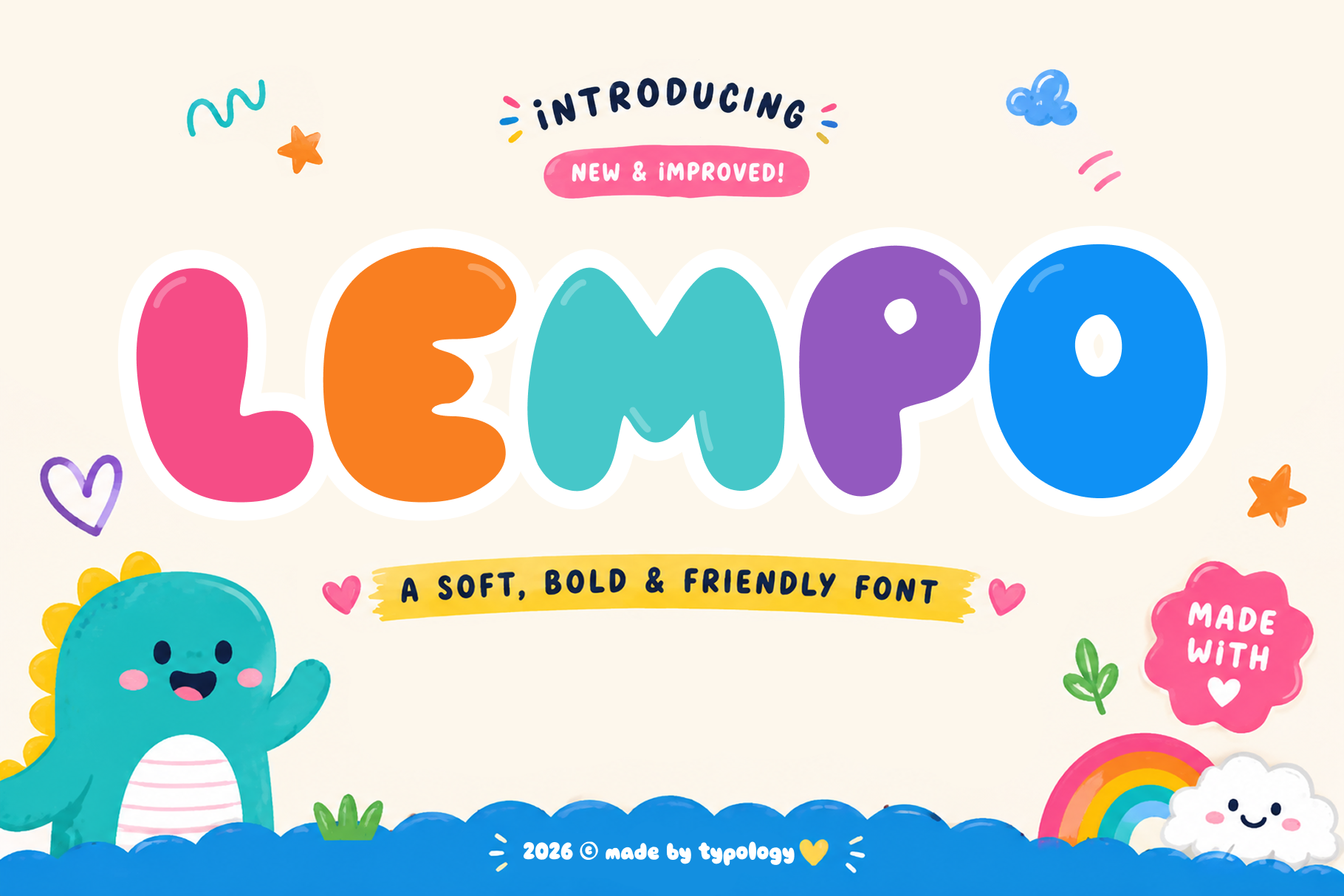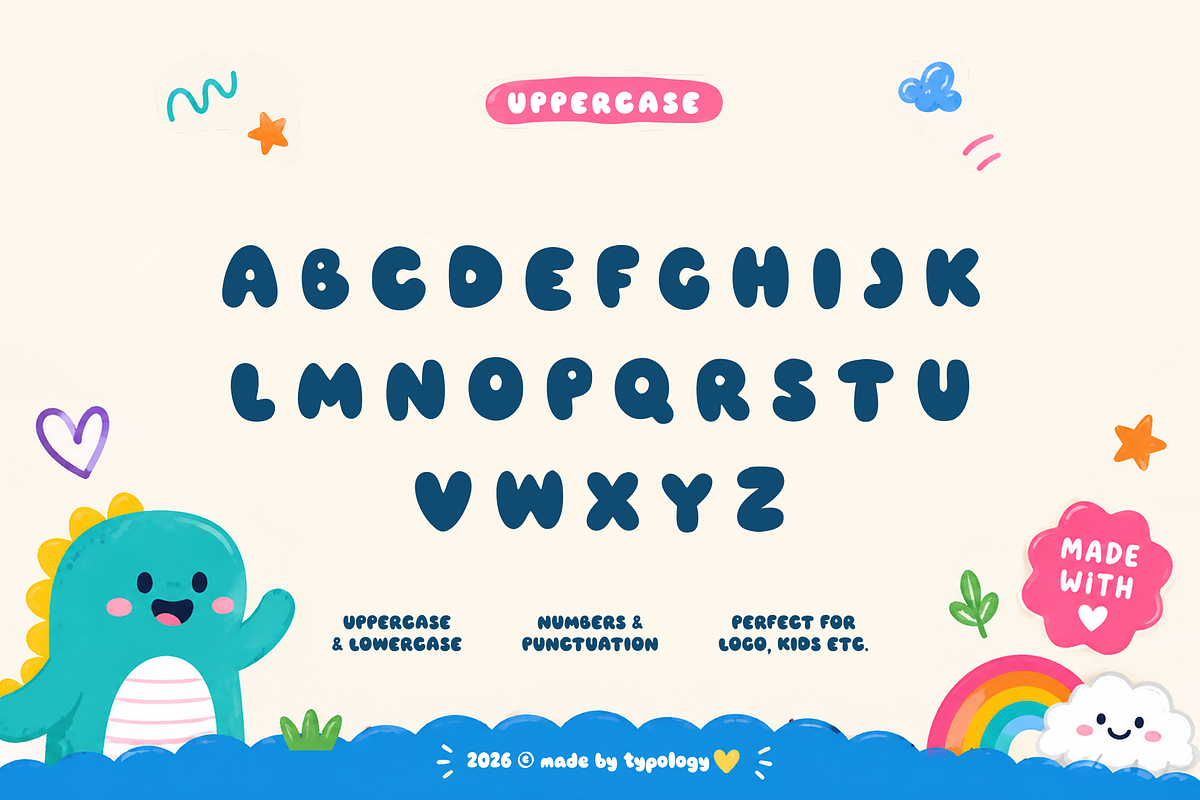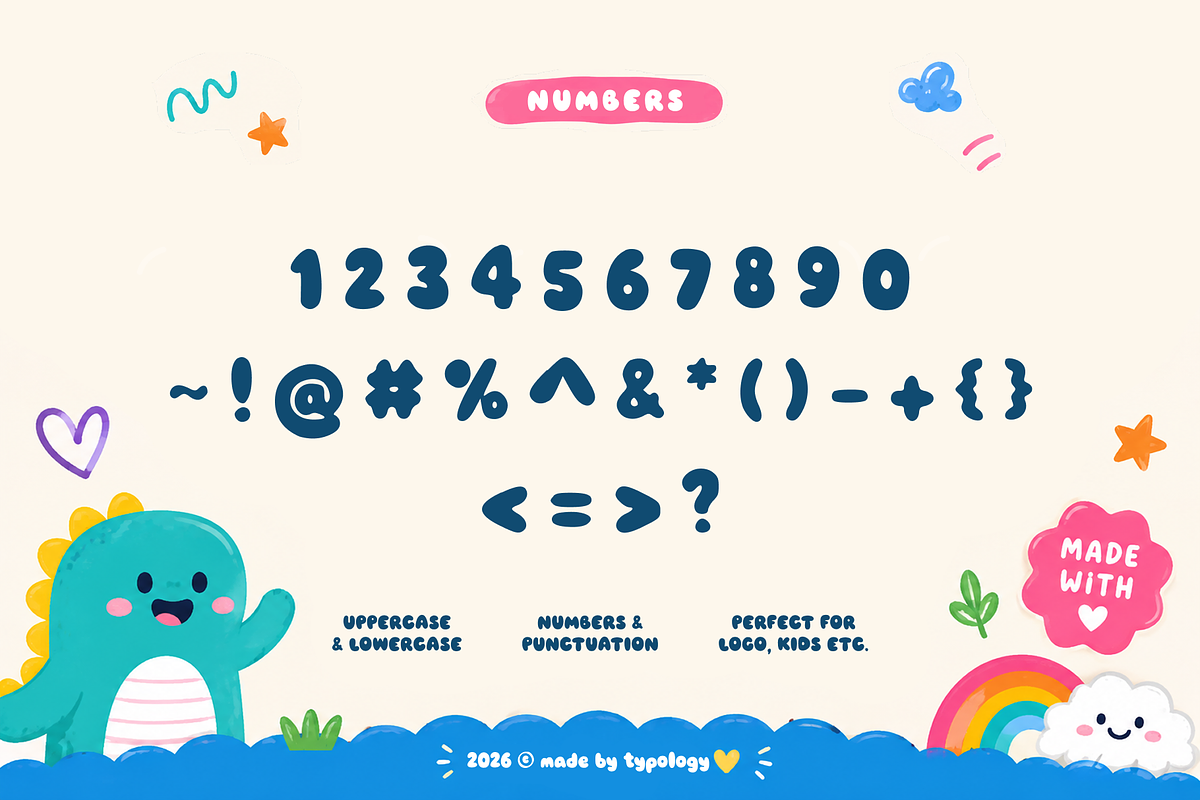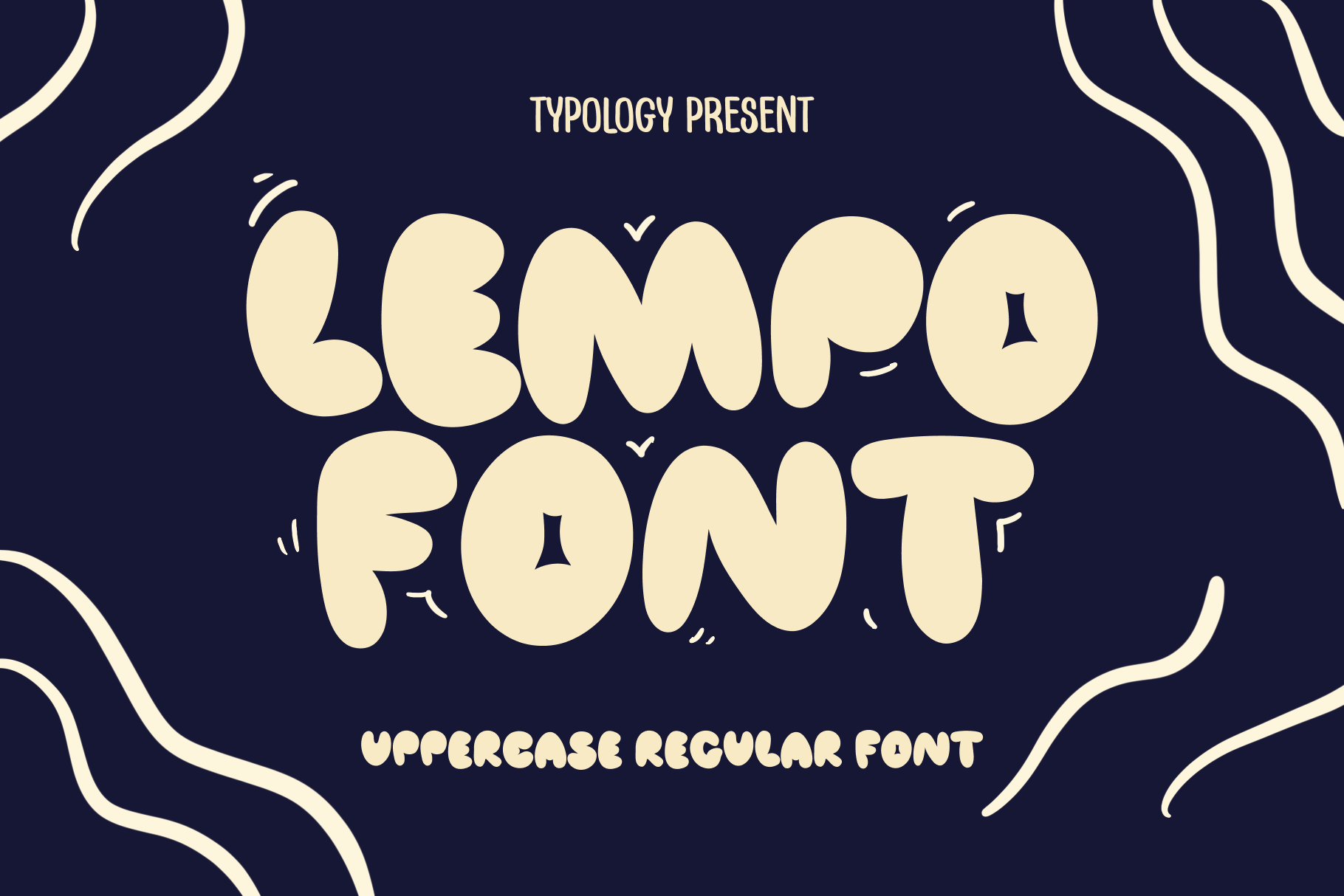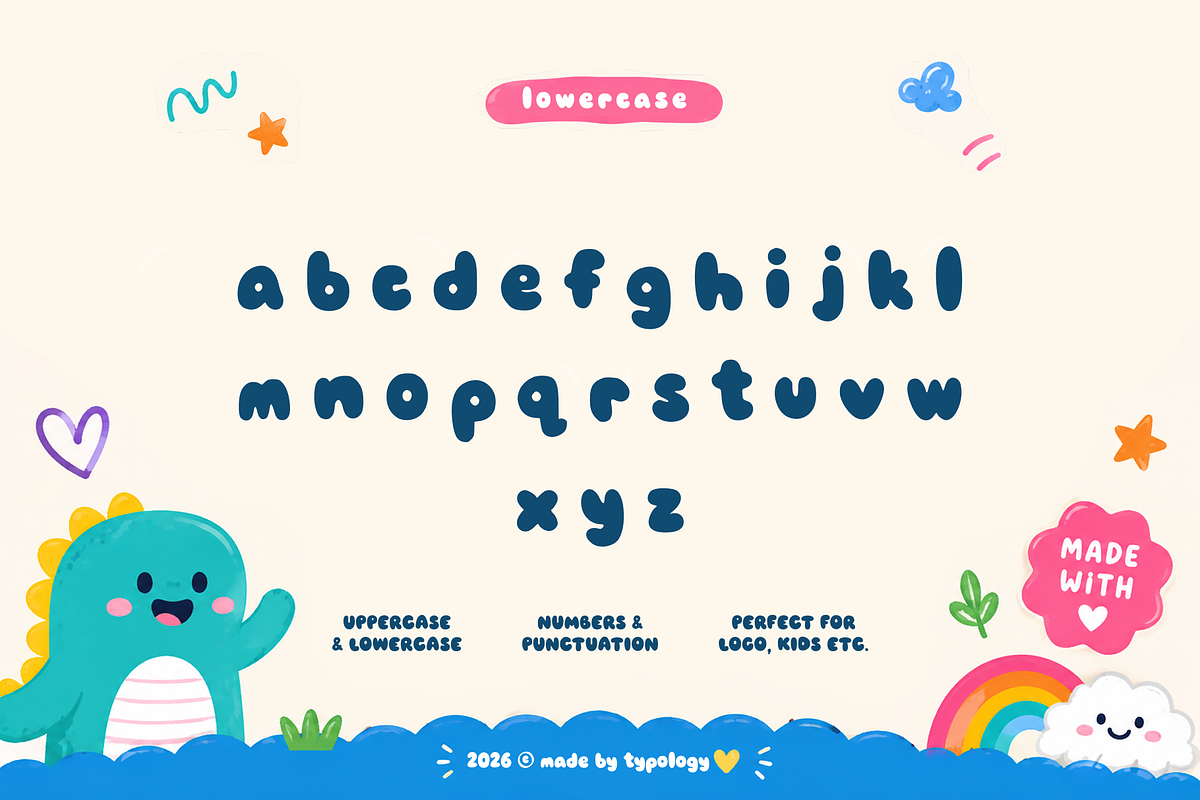
Lempo - Fancy Bold Font
About Lempo Font
Check out the Lempo font! It features a hefty style with a unique blend of bubbly and delightful curves. The font comes with uppercase letters from A to Z, as well as alternative versions of punctuation marks such as !, ?, and &. This font is perfect for creating striking logos, beautiful quotes, eye-catching artwork, captivating signs, powerful titles, and adding a personal touch to your designs. So go ahead and give it a try - you're sure to love it!
Curious about the contents of the font? Look no further - available on uppercase only from A to Z, as well as numbers, symbols, and punctuation marks. You can see all of these elements illustrated in the accompanying slides.